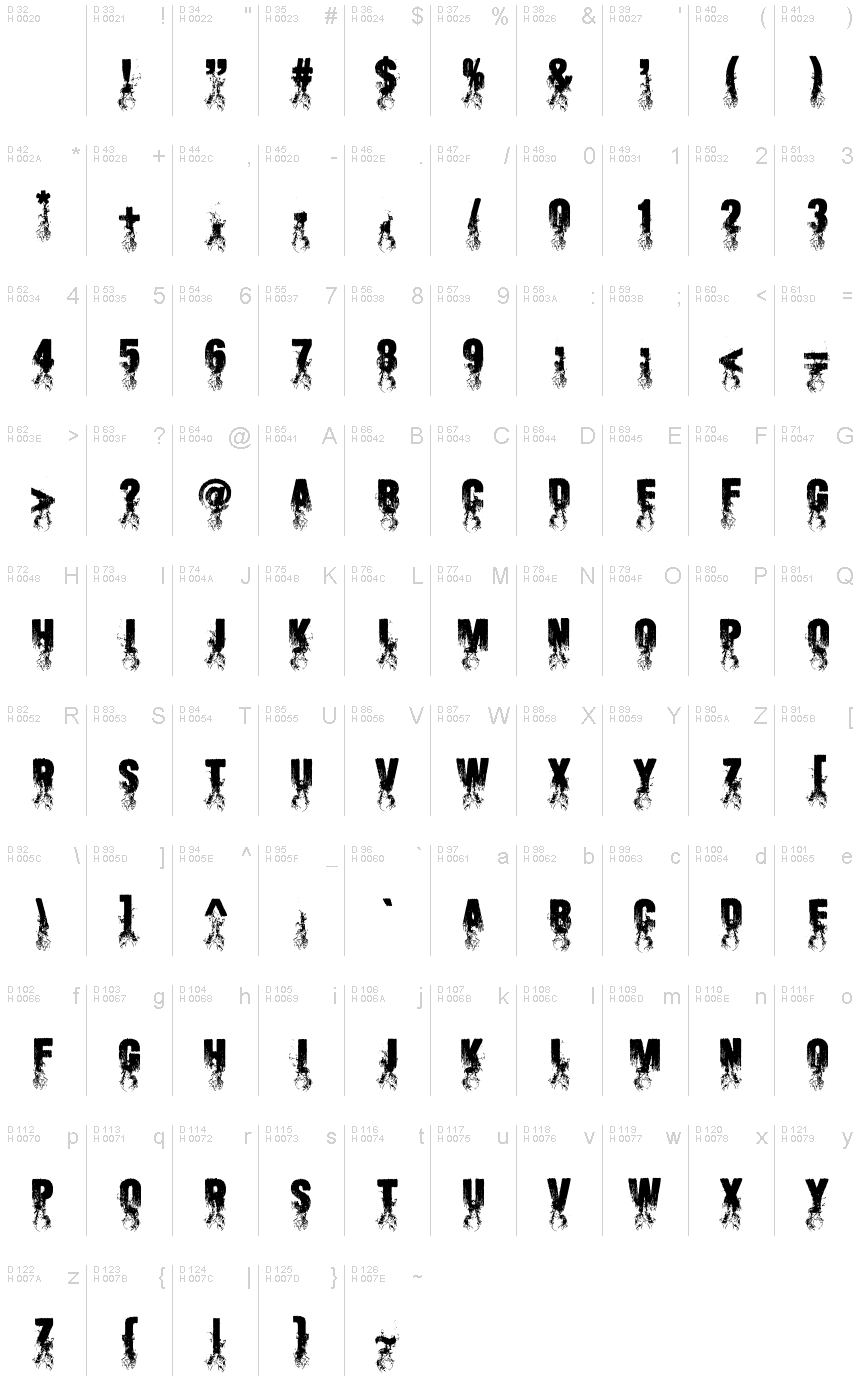
Blaize
Blaize is a striking and bold display font that commands attention. Its rugged, graffiti-inspired aesthetic is defined by its heavy, condensed letterforms and dynamic, asymmetrical strokes. The font exudes an edgy, urban vibe, making it an ideal choice for a range of design applications, from event branding and product packaging to editorial layouts and street art-inspired graphics.
Blaize's condensed width and robust weight lend it a sense of power and intensity, while its decorative flourishes add a touch of character and personality. This font's versatility ensures it can be leveraged to create impactful visual statements across a diverse array of design contexts, from bold headlines to attention-grabbing logos.